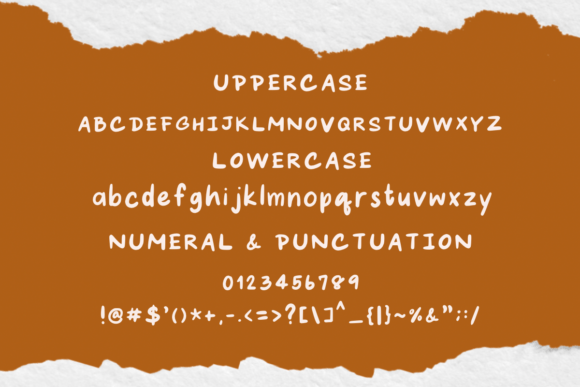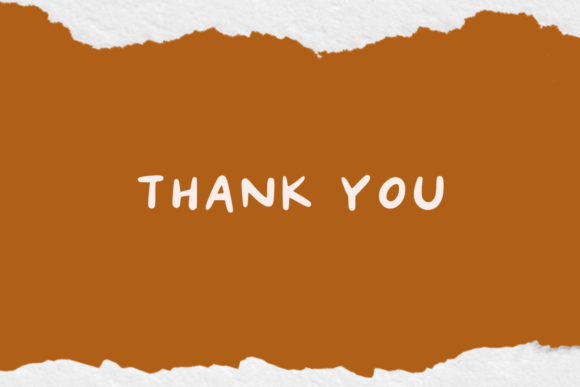
Ginkean Font: The Perfect Addition to Your Design Toolkit
Are you tired of using the same old fonts in your designs? Look no further than Ginkean, a fun and friendly handwritten font that’s perfect for adding a cute and personal touch to your projects. In this article, we’ll dive into the world of Ginkean and explore its many uses, from logos and branding to invitations and social media posts.
What is Ginkean Font?
Ginkean is a unique and charming handwritten font that’s designed to bring a smile to your face. Its playful and approachable style makes it perfect for designers and crafters who want to add a personal touch to their work. Whether you’re creating a logo, invitation, or social media post, Ginkean is sure to make your design stand out from the crowd.
Uses for Ginkean Font
So, what can you use Ginkean for? The possibilities are endless! Here are just a few ideas to get you started:
- Logos and Branding: Use Ginkean to create a unique and memorable logo for your business or brand. Its friendly and approachable style makes it perfect for companies that want to convey a sense of warmth and approachability.
- Invitations and Stationery: Add a personal touch to your invitations and stationery with Ginkean. Its playful style makes it perfect for weddings, birthday parties, and other special occasions.
- Wedding Designs: Ginkean is a great choice for wedding designs, including wedding invitations, programs, and decorations. Its romantic and whimsical style is sure to make your special day even more memorable.
- Social Media Posts: Use Ginkean to add a personal touch to your social media posts. Its fun and playful style makes it perfect for creating engaging and shareable content.
Benefits of Using Ginkean Font
So, why should you choose Ginkean for your design projects? Here are just a few benefits of using this amazing font:
- Unique and Memorable: Ginkean is a one-of-a-kind font that’s sure to make your designs stand out from the crowd. Its unique and memorable style will help you create a lasting impression on your audience.
- Easy to Read: Despite its playful style, Ginkean is easy to read and understand. This makes it perfect for designs that require a clear and concise message.
- Versatile: Ginkean is a versatile font that can be used in a variety of design projects. Whether you’re creating a logo, invitation, or social media post, Ginkean is sure to fit the bill.
Tips for Using Ginkean Font
Now that you know a little bit about Ginkean, here are some tips for using it in your design projects:
- Use it with a Bold Font: Ginkean pairs perfectly with bold fonts, which can help to create a striking contrast and make your design stand out.
- Experiment with Colors: Ginkean looks great in a variety of colors, so don’t be afraid to experiment and find the perfect hue for your design.
- Keep it Simple: While Ginkean is a playful font, it’s still important to keep your design simple and easy to understand. Avoid clutter and focus on getting your message across.
| Font Name | Ginkean Font |
| Author | Juggabee |
In conclusion, Ginkean is a fun and friendly handwritten font that’s perfect for adding a cute and personal touch to your design projects. Its unique and memorable style makes it perfect for logos, branding, invitations, stationery, wedding designs, social media posts, and much more! With its many uses and benefits, Ginkean is sure to become a staple in your design toolkit.